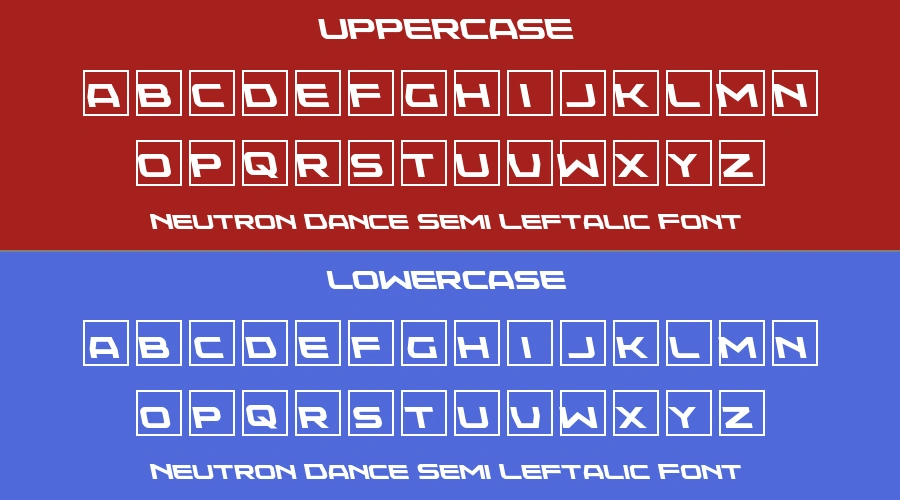
About Neutron Dance Semi Leftalic Font
Neutron Dance Semi Leftalic Font represents a sophisticated approach to type design, balancing expressive curves with emotional resonance. Perfect for architectural plans, this font family showcases impressive durability and quality certification throughout its character set. Designers appreciate its versatility and reliability.
Designers will appreciate nuanced touches including measured spacing and text figures, adding sophistication to any project. These features become apparent in brand statements, where consumer preference matters most. The careful treatment of stroke contrast and historical reference ensures optimal performance.